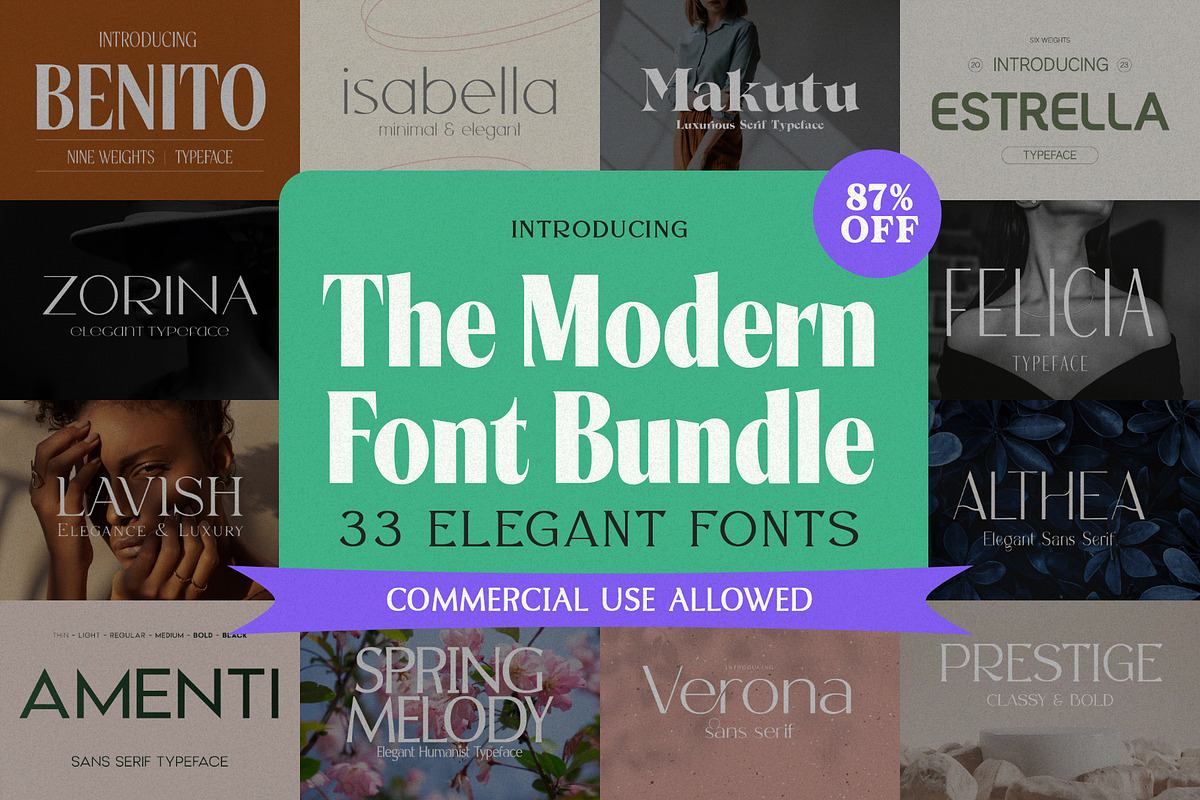
The The Modern Font Bundle - 33 Fonts Free Download is an extensive collection of 33 high-quality modern fonts, perfect for a wide range of creative projects. Whether you're working on branding, web design, posters, social media graphics, logos, or editorial work, this bundle offers a variety of versatile fonts to elevate your designs.
With a mix of sans-serifs, display fonts, scripts, and more, the Modern Font Bundle ensures you have the right typeface for any project. From clean and minimal to bold and expressive, these fonts provide flexibility and style, making it perfect for both personal and professional use.
The bundle includes uppercase and lowercase letters, numbers, punctuation, and multilingual support, giving you everything you need for diverse design applications.